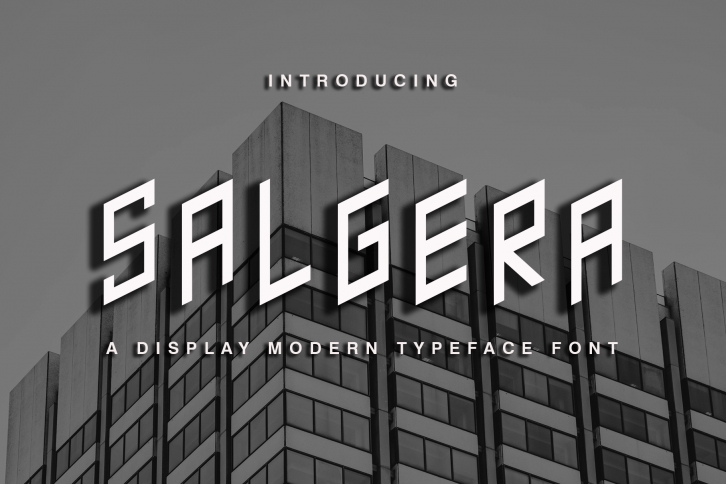
Salgera is a font with a raw aesthetic and solid building style. The font carries the spirit of street culture, with its slanted shapes, rough edges and pure imperfections. Salgera is perfect for shirts, advertisements, social media, craft projects, signs, wall art and more!